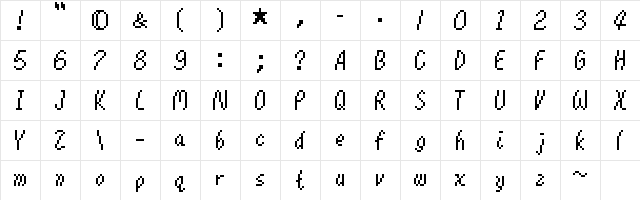
Mario64 Regular Font Preview
Mario64 Regular
| Designer | sinnyboi |
Design Context for Mario64 Typeface
Mario64 takes a measured approach to typography — its balanced proportions and neutral character make it a reliable workhorse for both digital and print work.